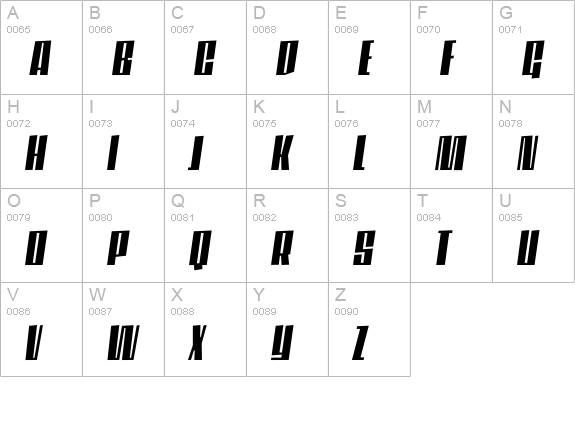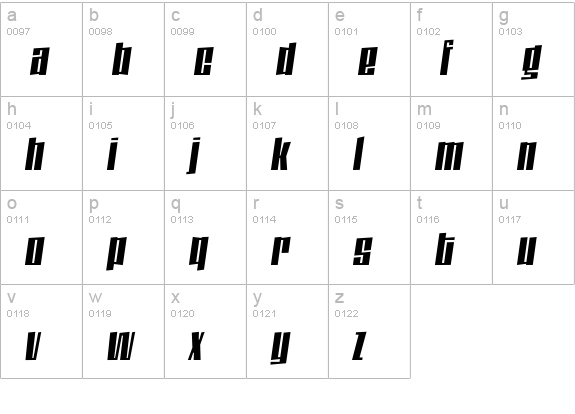
DaleysGothic-BoldItalic Font Details
DaleysGothic-BoldItalic is an extraordinary font that beautifully combines elements of gothic and bold styles, resulting in a unique and captivating design. With its striking and dramatic appearance, this font is perfect for adding a touch of elegance and sophistication to any project. The bold and italicized features of DaleysGothic-BoldItalic make it an ideal choice for creating eye-catching headlines, logos, and titles. Its intricate and carefully crafted letterforms exude a sense of mystery and intrigue, making it perfect for projects that require a touch of darkness and mysticism. Not only does DaleysGothic-BoldItalic possess a visually stunning aesthetic, but it also offers exceptional versatility. It can be used across a wide range of design mediums, including print materials, websites, and digital graphics. Its legibility remains intact even at smaller sizes, ensuring that your message is conveyed with clarity and impact. What makes DaleysGothic-BoldItalic even more remarkable is that it is freely available to download at FontsMarket.com. This means that you can enhance your creative projects without any financial constraints. Whether you're a professional designer or a passionate hobbyist, this font provides you with the opportunity to unleash your creativity without breaking the bank. So, if you're looking for a font that combines boldness, elegance, and a touch of gothic charm, look no further than DaleysGothic-BoldItalic. Download it now from FontsMarket.com and experience the power and beauty of this captivating typeface.